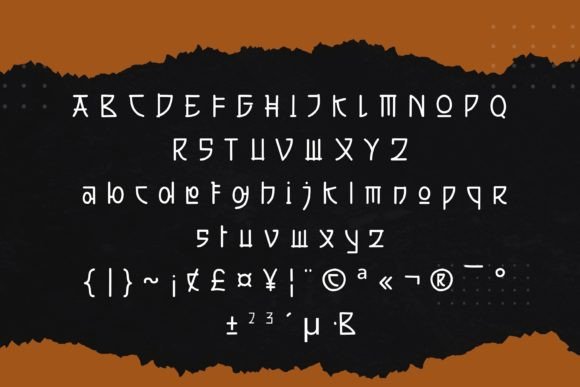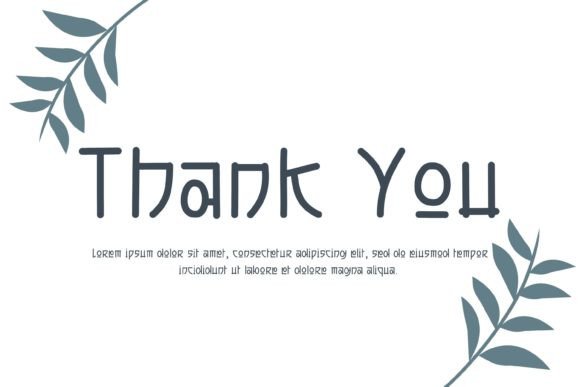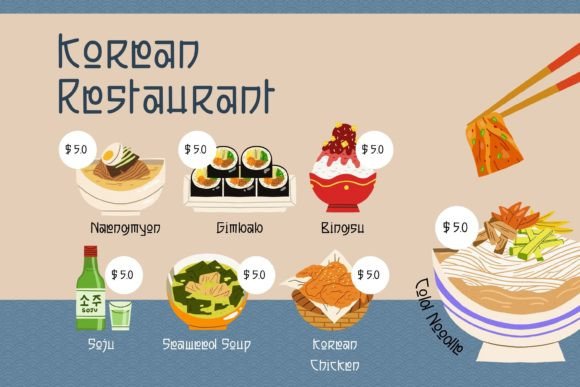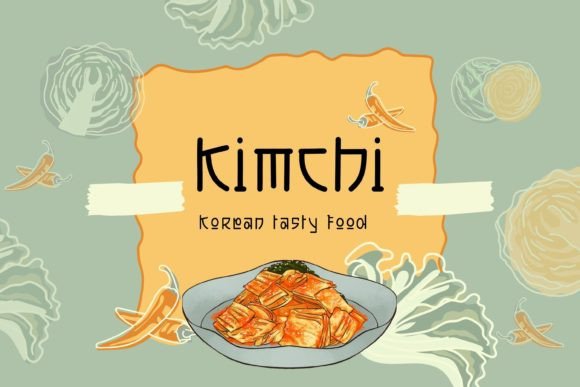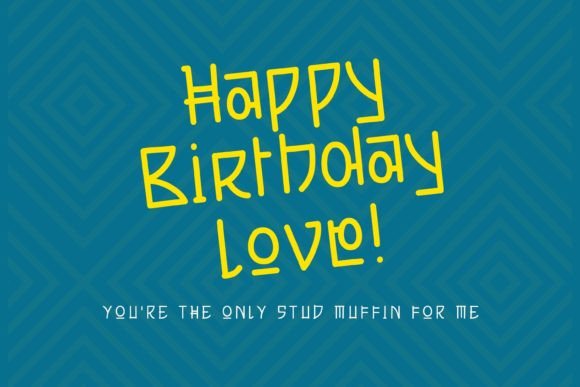
Introduction to Koreanst Font
Koreanst is a cool and modern display font and a great companion for your Korean-themed designs.
It’s perfect for movie posters, greeting cards, social media content, youtube videos, even logo design, etc .